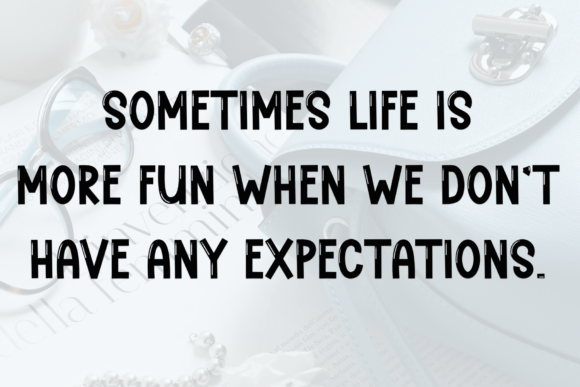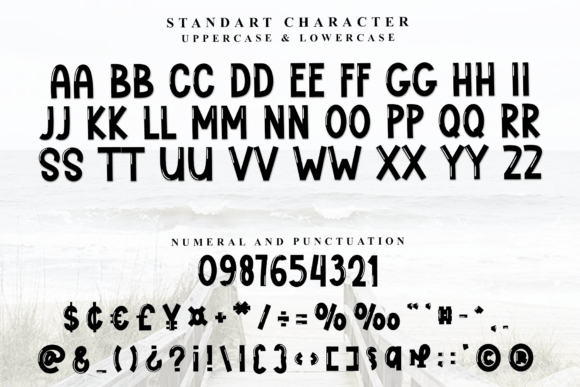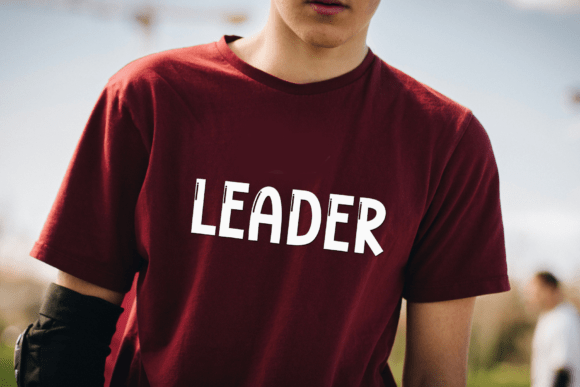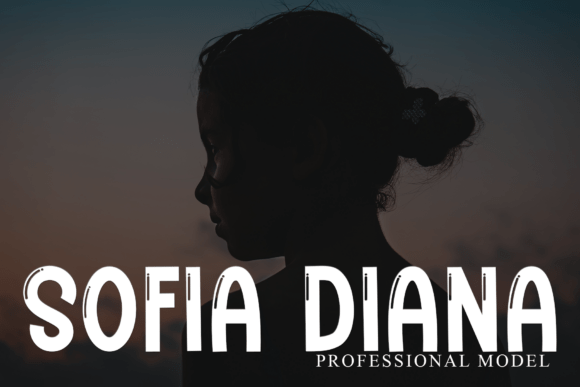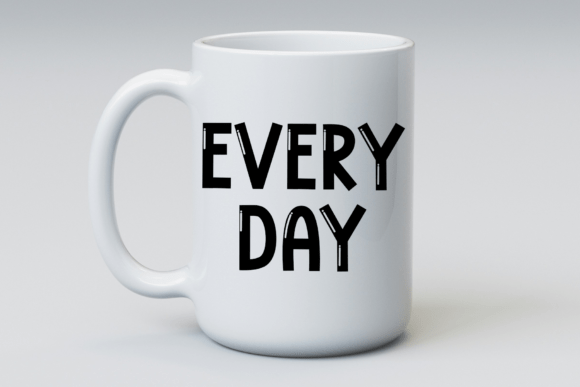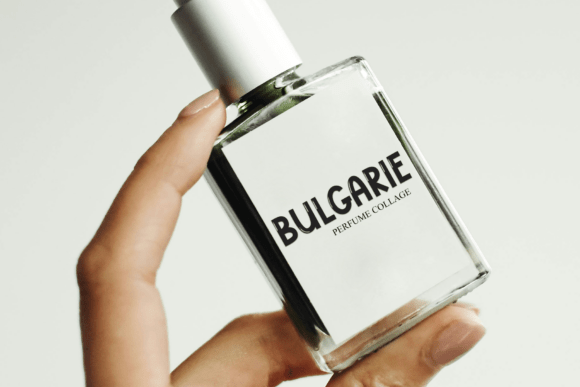
Introducing Birthday Verrygood Font: The Sweet and Friendly Display Font You Need!
Are you tired of using the same old fonts for your designs? Look no further! Birthday Verrygood Font is here to shake things up with its sweet and friendly display style. This unique font is perfect for designers and crafters who want to add a personal touch to their projects. In this article, we’ll dive into the world of Birthday Verrygood Font and explore its features, uses, and benefits.
What is Birthday Verrygood Font?
Birthday Verrygood Font is a display font that boasts a natural and unique style. Its sweet and friendly appearance makes it perfect for a wide range of designs, from birthday cards and party invitations to branding and advertising materials. The font’s versatility is limitless, and its only constraint is your imagination!
Key Features of Birthday Verrygood Font
- Unique and Natural Style: Birthday Verrygood Font has a distinct and organic look that sets it apart from other fonts.
- Sweet and Friendly Appearance: The font’s playful and approachable style makes it perfect for designs that require a personal touch.
- Highly Versatile: Birthday Verrygood Font can be used for a wide range of designs, from digital and print materials to branding and advertising.
- Easy to Read: Despite its unique style, the font remains easy to read, making it perfect for headlines, titles, and short paragraphs.
Uses of Birthday Verrygood Font
Birthday Verrygood Font is perfect for designers and crafters who want to add a personal touch to their projects. Here are some ideas to get you started:
- Birthday Cards and Invitations: Create custom birthday cards and invitations with a personal touch.
- Branding and Advertising: Use Birthday Verrygood Font to create unique and eye-catching branding and advertising materials.
- Party Decorations: Design custom party decorations, such as banners, garlands, and signs, with a playful and festive touch.
- Digital and Print Materials: Use Birthday Verrygood Font for digital and print materials, such as social media graphics, flyers, and brochures.
Benefits of Using Birthday Verrygood Font
So, why choose Birthday Verrygood Font for your designs? Here are some benefits to consider:
- Stand Out from the Crowd: Birthday Verrygood Font’s unique style ensures that your designs will stand out from the crowd.
- Personal Touch: The font’s sweet and friendly appearance adds a personal touch to your designs, making them more relatable and engaging.
- Time-Saving: With Birthday Verrygood Font, you can create stunning designs in no time, thanks to its easy-to-read and versatile style.
- Limitless Creativity: The font’s versatility and unique style give you the freedom to experiment and try new things, pushing the boundaries of your creativity.
In conclusion, Birthday Verrygood Font is a sweet and friendly display font that is perfect for designers and crafters who want to add a personal touch to their projects. Its unique and natural style, versatility, and ease of use make it an excellent choice for a wide range of designs. Whether you’re creating birthday cards, branding materials, or party decorations, Birthday Verrygood Font is sure to bring a smile to your audience’s faces. So, what are you waiting for? Give Birthday Verrygood Font a try today and unleash your creativity!